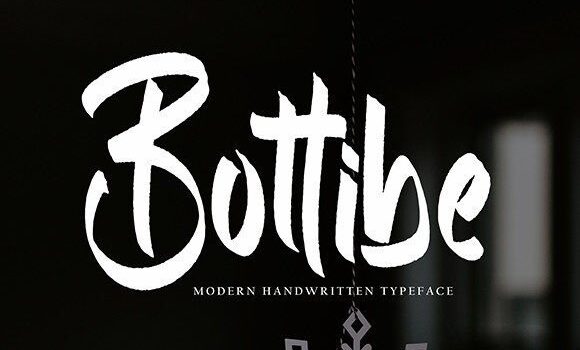
bottibe
Bottibe Font – Free Download Introduction to Bottibe Font Bottibe is a bold and modern handwritten brush font. 📸 Preview Gallery 6 images 📌 Product Name Bottibe Font 👤 Author Pineungtype & Missinklab 📂 Category Explore ⬇️ Download Bottibe Font